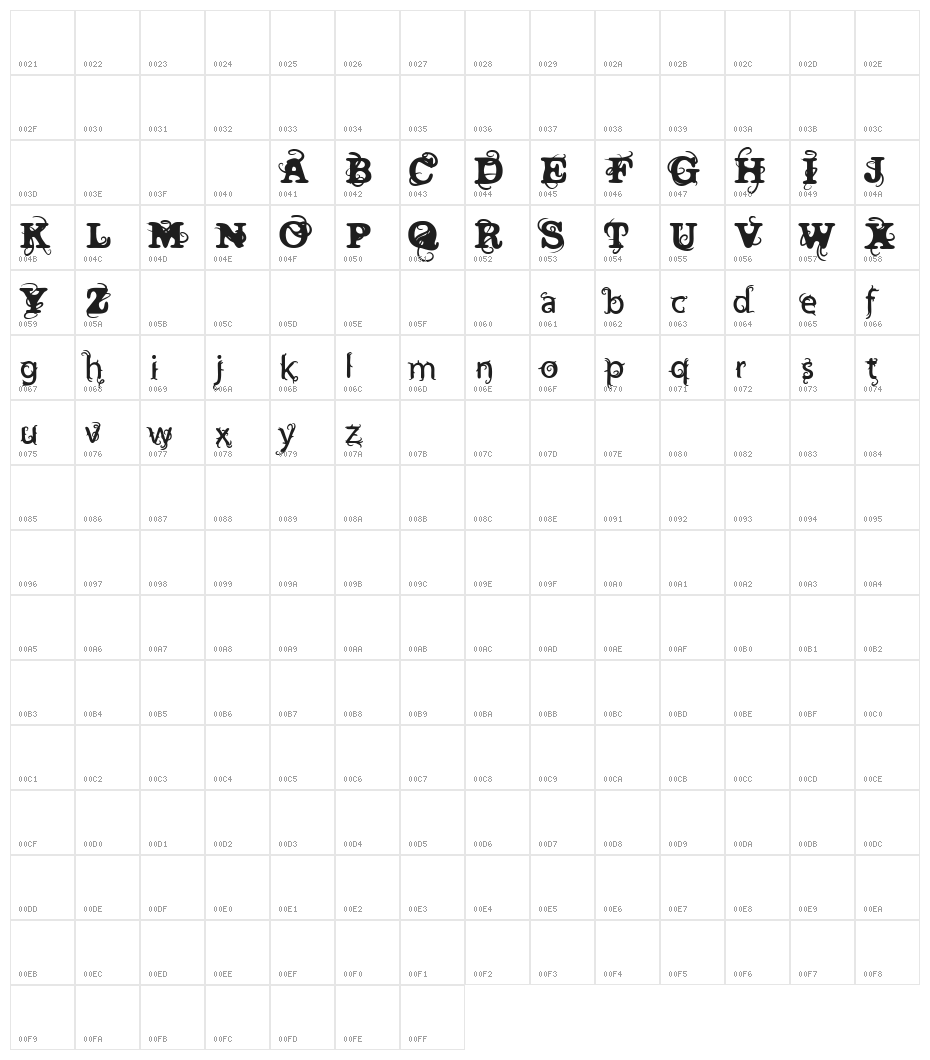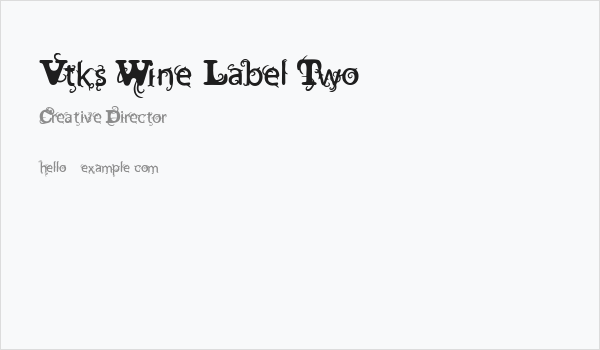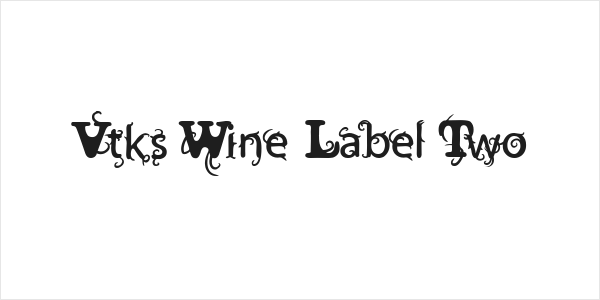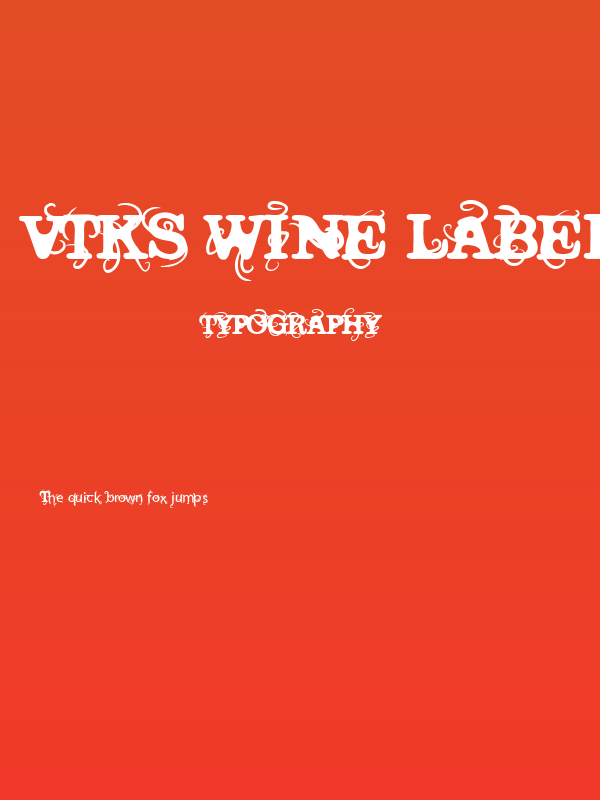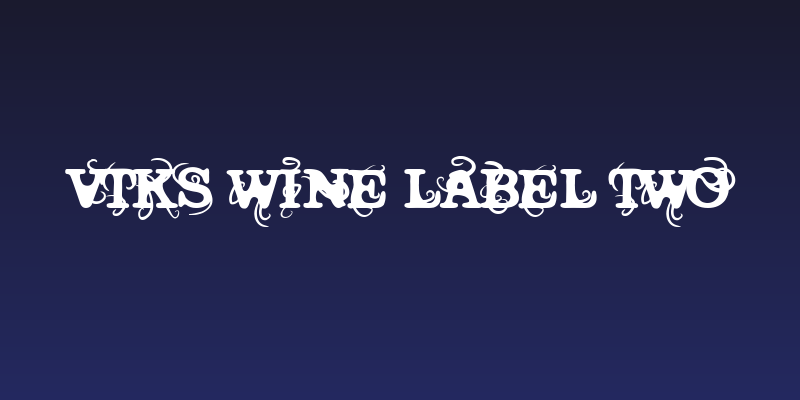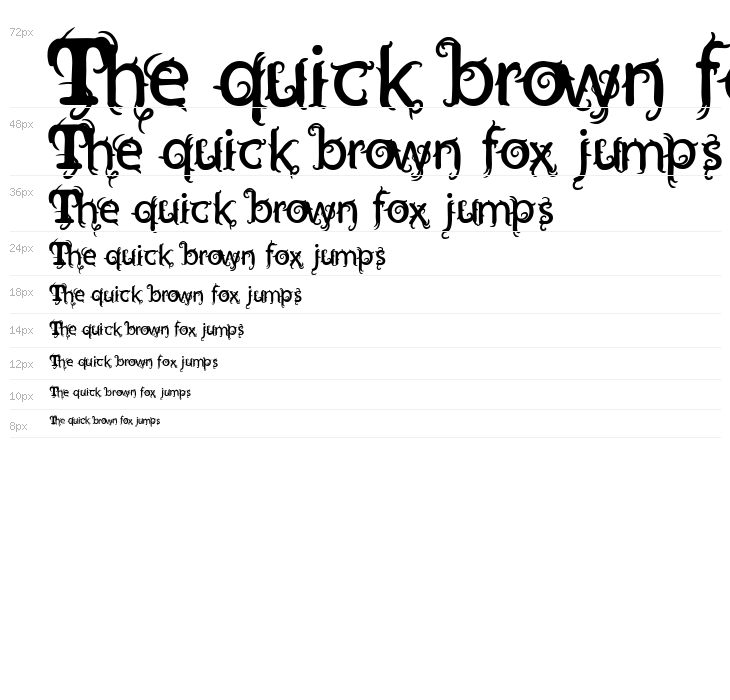
Vtks Wine Label Two Font
Vtks Wine Label Two Description
This font features an intricate and decorative style, characterized by elaborate swirls and flourishes that extend from the main strokes of each letter. The uppercase letters are particularly ornate, with embellishments that give a sense of elegance and sophistication. The lowercase letters maintain a similar decorative theme, though with slightly less complexity, ensuring readability. The font's unique design elements make it stand out, offering a vintage and artistic feel. It is well-suited for projects that require a touch of class and creativity, such as wine labels, invitations, or artistic posters. The overall appearance is bold and eye-catching, making it ideal for headlines or titles where impact is desired.
| Overall Style | Vintage, Decorative |
| Use Case | Headlines, Logos, Artistic Designs |
| Proposed Projects | Ideal for wine labels, invitations, artistic posters, and any design requiring a vintage or elegant touch. |